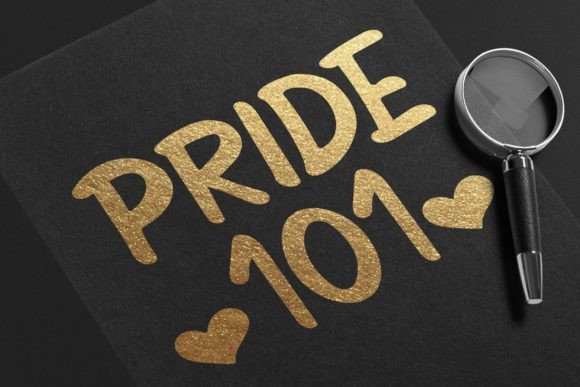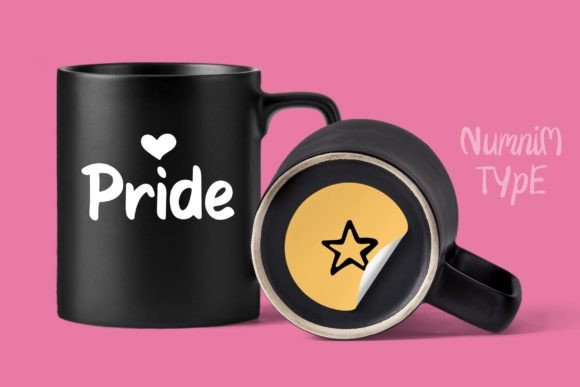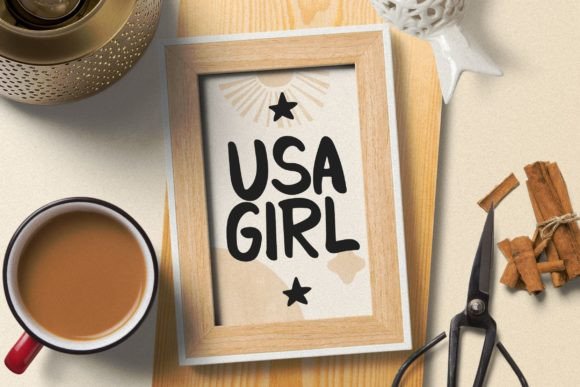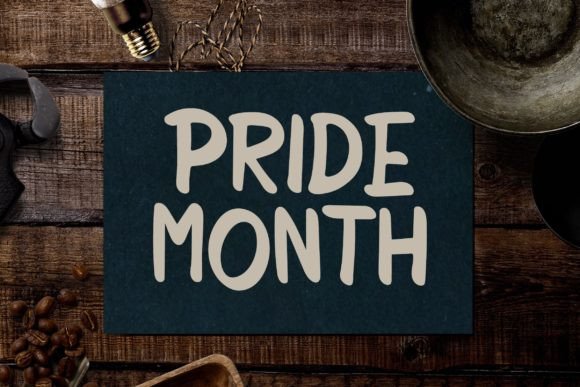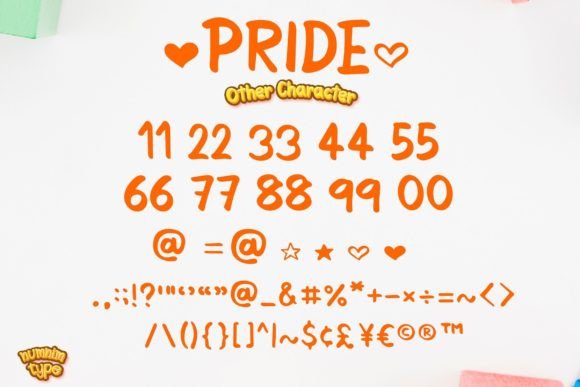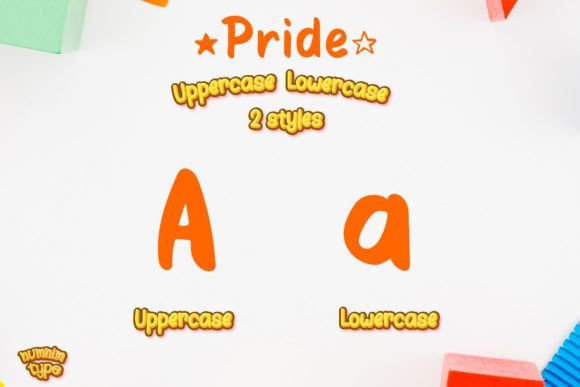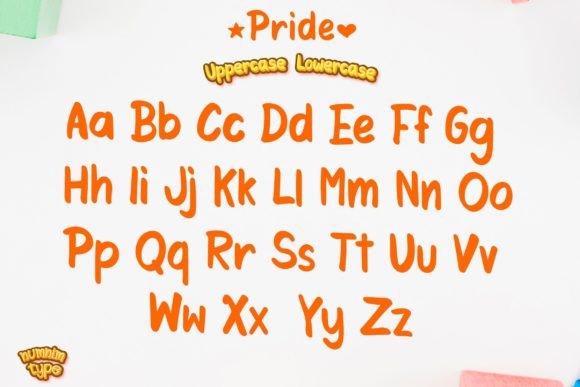
**Pride Font: Where Cool Craftsmanship Meets Playful Expression**
Introducing “Pride,” a cool and uniquely crafted handwritten LGBT+ font that radiates fun and playfulness. With its vibrant and expressive characters, this font is the perfect choice for a range of creative applications, from stickers and mugs to t-shirts and ornaments. Embrace the spirit of inclusivity with “Pride,” a font designed to add a touch of joy to Pride month event cards, invitations, and much more!
At the core of “Pride” is a cool craftsmanship that sets it apart. The font’s playful characters are carefully crafted to capture the essence of the LGBT+ community, making it a lively and expressive choice for various design projects. “Pride” is not just a typeface; it’s a celebration of diversity and a statement of inclusivity.
The versatility of “Pride” shines through in its adaptability to a wide range of applications. Picture it adorning stickers that spread messages of love and acceptance, becoming the focal point of mugs that carry positive affirmations, or adding a vibrant touch to t-shirts that make a statement. This font becomes a dynamic companion that aligns seamlessly with the essence of Pride month celebrations.
The inclusion of glyphs and swashes, easily accessible through PUA encoding, enhances the font’s expressive potential. This feature allows you to customize and experiment with different character combinations, ensuring that your typography reflects the vibrant and inclusive spirit of the LGBT+ community.
“Pride” is more than just a font; it’s a manifestation of the joy and unity that define the Pride movement. Embrace it, and watch as your designs come alive with color and expression. With “Pride,” every letter becomes a brushstroke in the canvas of celebration, leaving an indelible mark of inclusivity on your design journey.